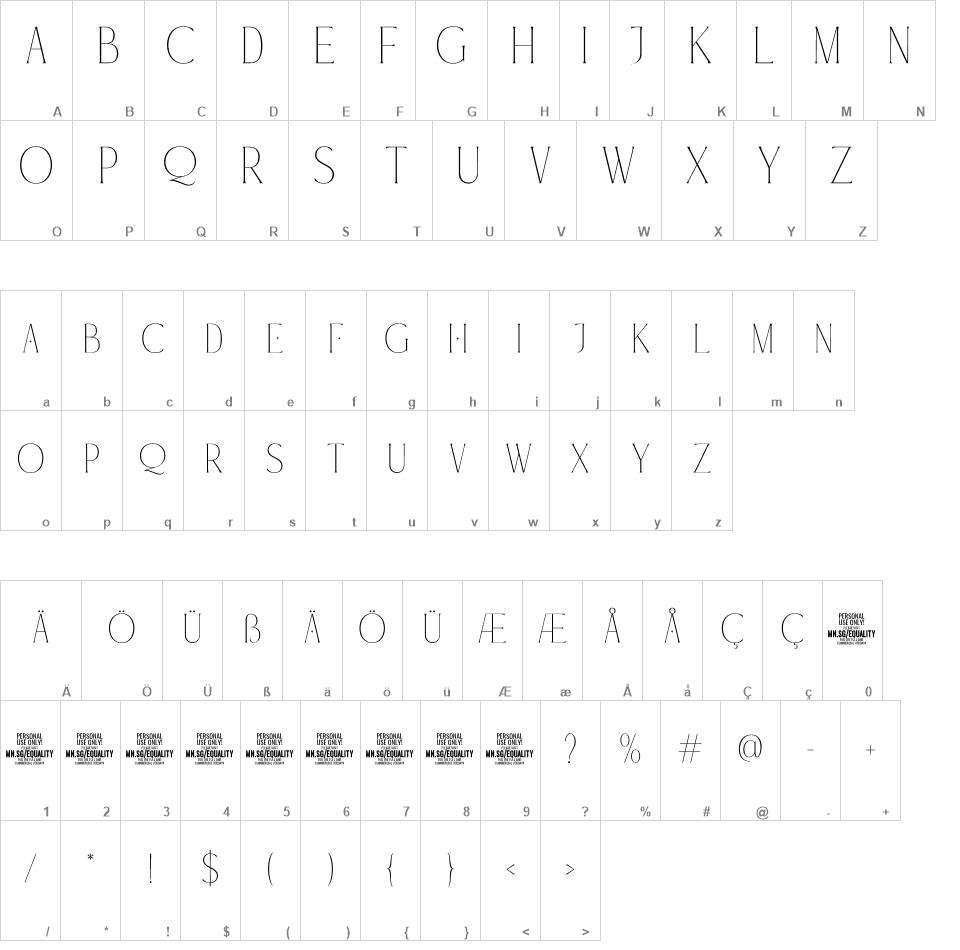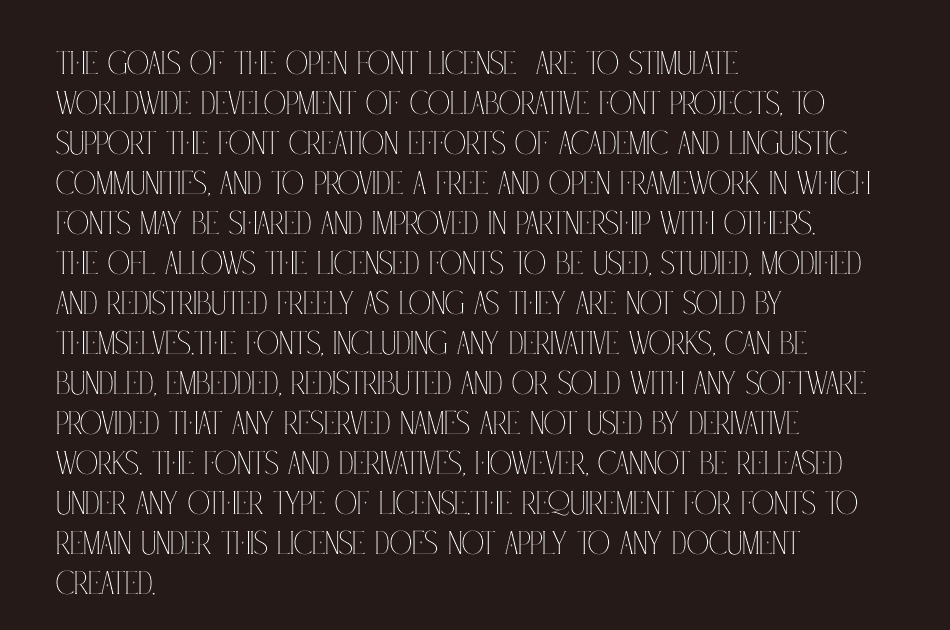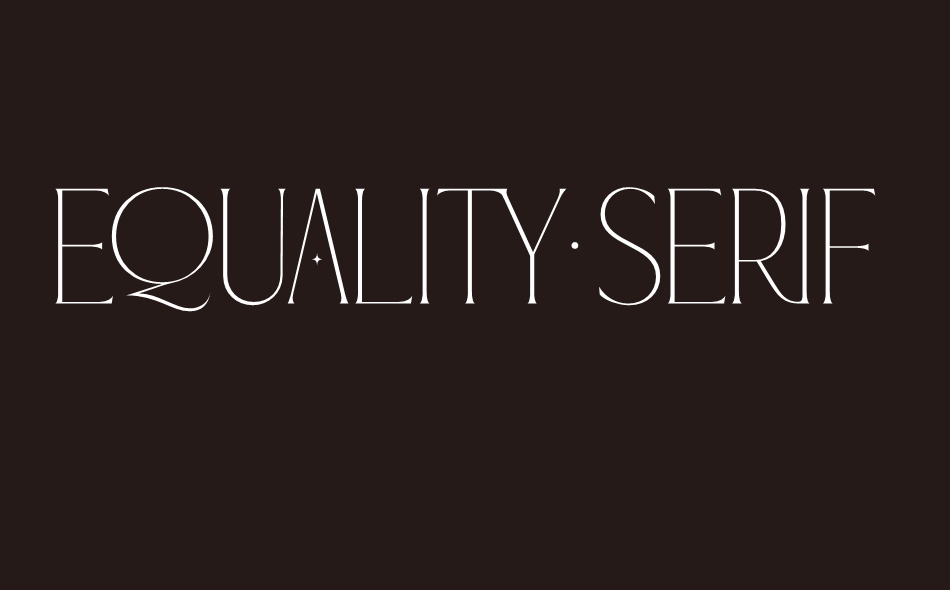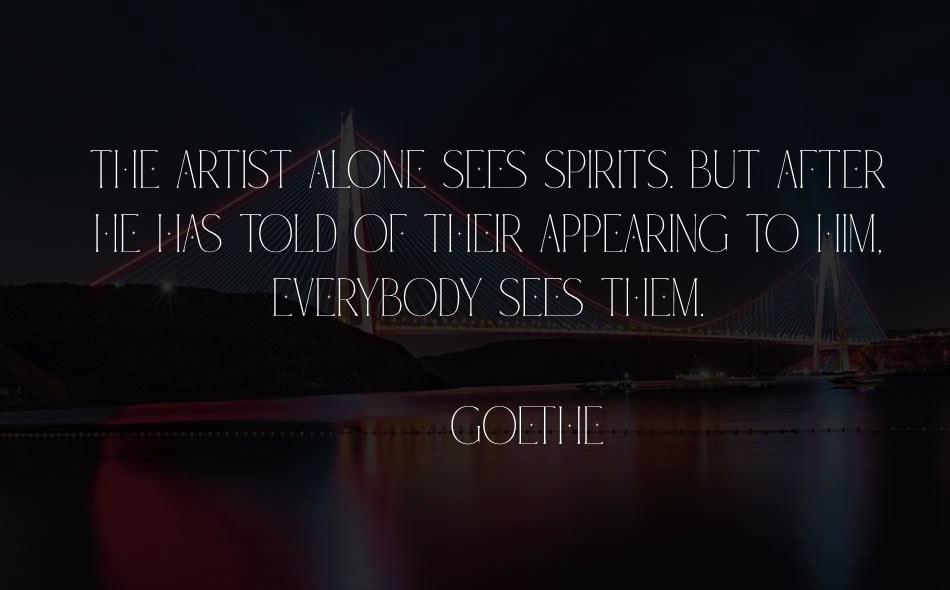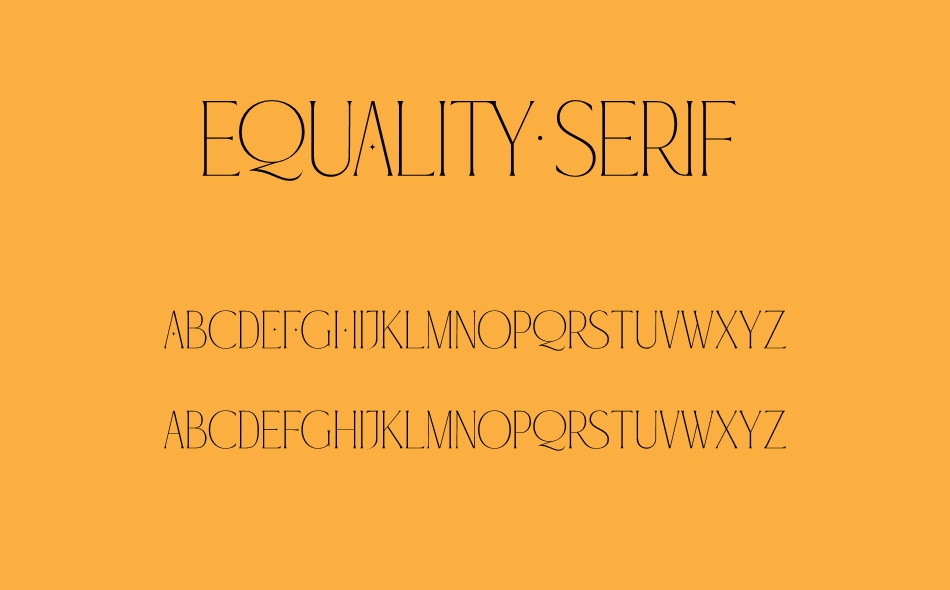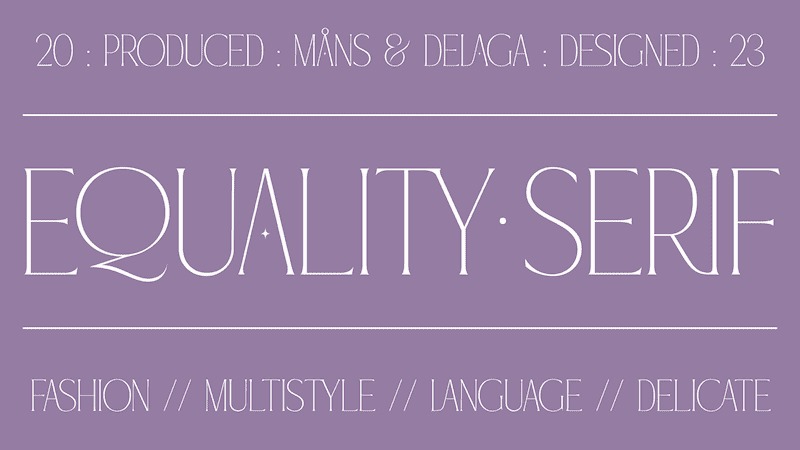
Equality Serif font
Equality Serif is a font that radiates classiness and luxury. This beautiful serif font features delicate and intricate details that add finesse and sophistication to any design. Designed with an aristocratic feel, this font is perfect for high-end projects that require a touch of elegance and refinement.
With its clean lines and precise angles, Equality Serif is the epitome of top class design. This uppercase font is perfect for headlines, logos, and branding projects that demand attention and make a statement.
The font also features a set of ligatures that add a touch of fluidity and grace to your designs. Whether you're working on a wedding invitation or a high-end fashion project, Equality Serif is the perfect font for adding a touch of class and elegance to your work.
Equality Serif is available in two styles: Regular and Italic.
The font is built with advanced OpenType functionality and has a guaranteed top-notch quality, containing stylistic and contextual alternates, ligatures and more features; all to give you full control and customizability. It has extensive lingual support, covering all Latin-based languages, from Northern Europe to South Africa, from America to South-East Asia. It contains all characters and symbols you'll ever need, including all punctuation and numbers.